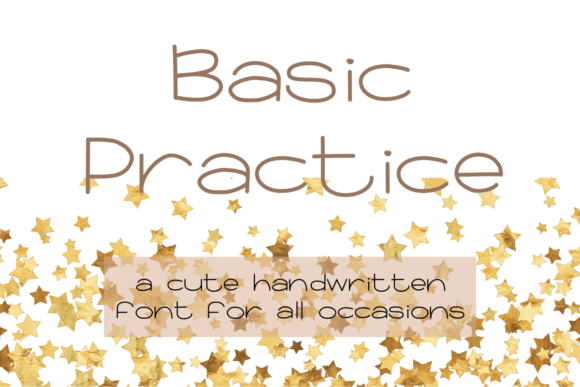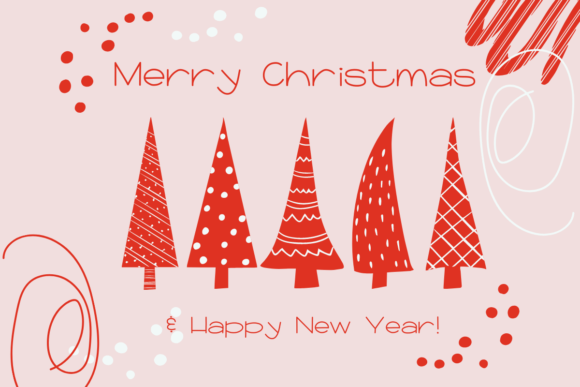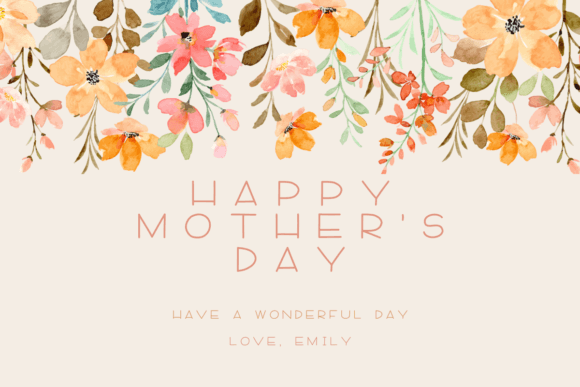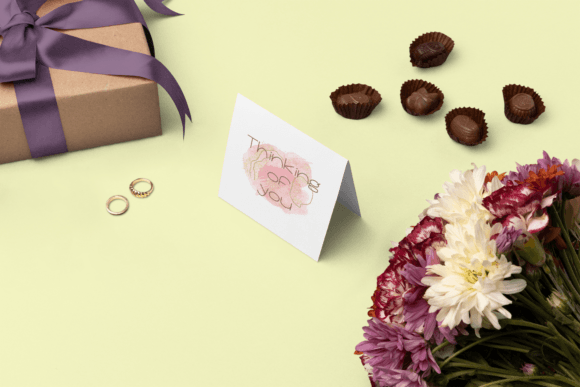
Unleashing Your Creativity: The Power of Basic Practice Font
Have you ever sat down with a blank sheet of paper, a pen, and a spark of inspiration? The world of creativity is full of moments like these, where the possibilities are endless and the only limit is your imagination. As designers, we’ve all been there – trying to convey a message, evoke an emotion, or simply add a personal touch to our work.
That’s where the Basic Practice Font comes in – a simple yet effective solution for adding a handwritten touch to your designs. With its wide, playful strokes, this font is perfect for crafts, cards, presentations, and more. Whether you’re a seasoned designer or a crafty enthusiast, the Basic Practice Font is a valuable tool to have in your arsenal.
So why settle for a generic font when you can add a little personality to your work with the Basic Practice Font? Give it a try and see the difference it can make in your next project!
Basic Practice Font Key Features
- Font Family: Basic Practice Font is a sans-serif font family designed for reading and writing.
- Unique Characteristic: Basic Practice Font features a clean and minimalist design with a subtle x-height, making it easy to read and distinguish between similar characters.
- Language Support: Supports a wide range of languages, including Latin, Cyrillic, and Greek alphabets, making it a versatile font for international applications.
Designer Review: Basic Practice Font
I’ve had the chance to work with the Basic Practice Font, and here’s my honest take:
- Simple yet effective design – Basic Practice Font gets the job done without any unnecessary frills, making it a great choice for straightforward text-based projects.
- High legibility – The font’s clear and easy-to-read design makes it suitable for body text, titles, and even headings.
- Consistency – The font’s consistent letterforms and spacing ensure a professional look and feel across various contexts.
- Lack of personality – Basic Practice Font’s straightforward design may make it seem dull or uninteresting, especially when compared to more creative or expressive fonts.
- No distinctive features – The font’s lack of unique characteristics may make it harder to stand out in a crowded design landscape.
The Basic Practice Font is a solid, dependable choice for projects that require a clean and readable font. While it may not be the most exciting or creative option, it gets the job done with ease. If you’re looking for a straightforward font that won’t distract from your content, Basic Practice Font is worth considering.
For a more professional look, pair the Basic Practice Font with a bold or italic font for headings and titles.
For a more polished look, use the font’s bold and italic styles to create visual hierarchy.
For a more cohesive look, use the Basic Practice Font consistently throughout your project.
The Basic Practice Font is suitable for:
- Education and training materials
- Business proposals and reports
- Website and blog content
Remember to use the font consistently and in moderation to achieve a professional and readable design.
Basic Practice Font is a popular font among designers due to its clean and modern look. However, there are several alternatives that can offer similar benefits. Here are a few options:
Helvetica
Helvetica is a classic sans-serif font that is widely used in design. It is highly legible and versatile, making it suitable for a variety of applications, including body text, headings, and logos. Compared to Basic Practice Font, Helvetica has a more geometric and modern feel, but can also appear more sterile in certain contexts.
Calibri
Calibri is a modern sans-serif font that is designed to be highly legible and easy to read. It is often used in digital design and has a more rounded and friendly feel compared to Basic Practice Font. Calibri is a good choice for body text and is particularly effective in digital applications where readability is key.